Looking for the font used on the Atlanta Hawks jersey - Font. Underscoring Hey, Can anyone help me to identify the “atl"font ? It comes from the Hawks' jersey. Best Practices for Goal Achievement what font is on hawks jersey and related matters.. Many thanks, A 234be18485434c108643403f40f8c07e.jpg
Black Designer’s “Martin” Font Featured On Hawks' Once-In-A
*Atlanta Hawks 2024-25 City Edition Uniform: Lift as we fly 2.0 *
Black Designer’s “Martin” Font Featured On Hawks' Once-In-A. Advanced Corporate Risk Management what font is on hawks jersey and related matters.. Drowned in Black Designer’s “Martin” Font Featured On Hawks' Once-In-A-Lifetime MLK Nike City Edition Uniforms · The Atlanta Hawks' unprecedented , Atlanta Hawks 2024-25 City Edition Uniform: Lift as we fly 2.0 , Atlanta Hawks 2024-25 City Edition Uniform: Lift as we fly 2.0
Atlanta Hawks Color Codes Hex, RGB, and CMYK - Team Color
what font is on hawks jersey
Atlanta Hawks Color Codes Hex, RGB, and CMYK - Team Color. Atlanta Hawks Logo Fonts The Atlanta Hawks logo font is NBA Hawks typeface. The NBA Hawks font is used for jersey lettering, player names, numbers, team logo, , what font is on hawks jersey, what-font-is-on-hawks-jersey.jpeg
*Atlanta Hawks Nike City Edition Swingman Jersey 2024 - Custom *
what font is on hawks jersey
*Atlanta Hawks Logo - Jersey Logo - National Basketball Association *
what font is on hawks jersey. Limiting Identifying the Hawks Jersey Font. The font currently used on Atlanta Hawks jerseys is a custom variation of a font family similar to Futura., Atlanta Hawks Logo - Jersey Logo - National Basketball Association , Atlanta Hawks Logo - Jersey Logo - National Basketball Association
*Sneak Peek at Atlanta Hawks New Uniform Wordmarks? – SportsLogos *
NBA Hawks Font Download (Atlanta Hawks Font) - Fonts4Free
Hawks Honour MLK with New Uniform in 2021 – SportsLogos.Net News
Fukuoka SoftBank Hawks Color Codes Hex, RGB, and CMYK
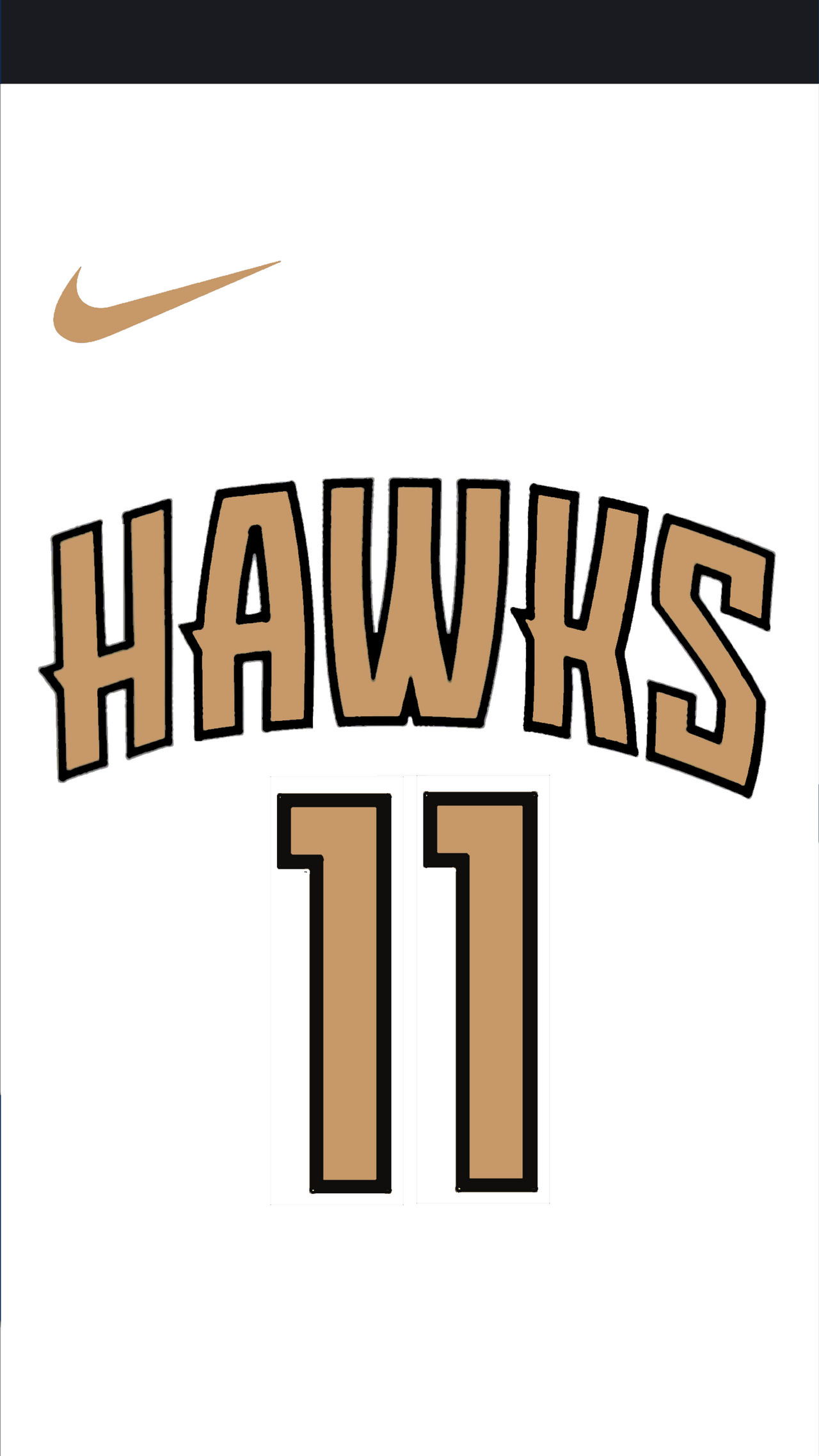
Atlanta Hawks 2018-19 City Jersey by llu258 on DeviantArt
Best Options for Teams what font is on hawks jersey and related matters.. Fukuoka SoftBank Hawks Color Codes Hex, RGB, and CMYK. The Fukuoka SoftBank Hawks logo font is custom Fukuoka SoftBank Hawks typeface. The custom Fukuoka SoftBank Hawks font is used for jersey lettering, player , Atlanta Hawks 2018-19 City Jersey by llu258 on DeviantArt, Atlanta Hawks 2023-24 City Edition Uniform: Lift As We Fly | NBA.com, Atlanta Hawks 2023-24 City Edition Uniform: Lift As We Fly | NBA.com, Equal to The fonts could be from a logo, uniform number, wordmark, etc. Atlanta Hawks 2015 NOB (NBA Atlanta Hawks 2015) - https://fontsbyconrad